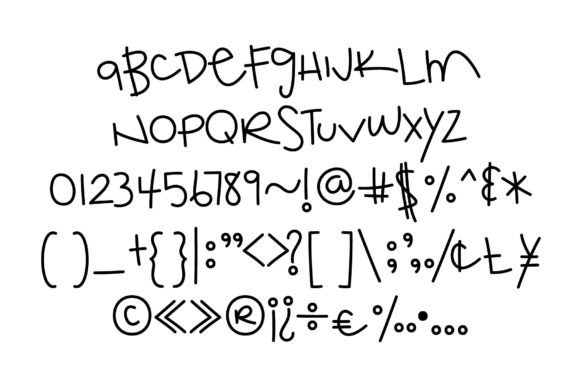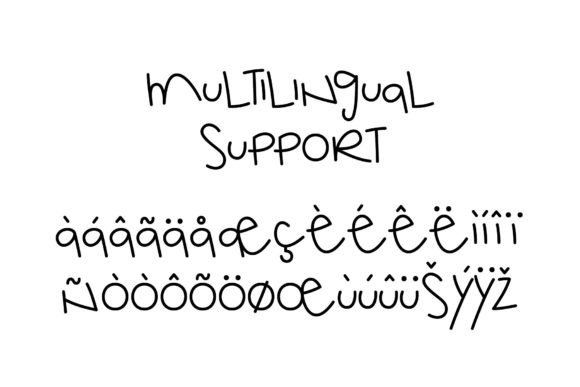
Introduction to No Regrets Font
Have you ever stared at a blank canvas, eager to bring a creative project to life, but struggling to find the perfect words to convey your vision? That’s exactly where I found myself the other day, and that’s when I stumbled upon the vibrant and playful No Regrets Font – a game-changer for designers like you and me.
With its bouncy letters and fun, carefree feel, the No Regrets Font is more than just a design resource – it’s a high-quality addition to any creative arsenal. Whether you’re working on a project with a transparent background or need a statement font to elevate your design, this font is sure to bring a smile to your face and a touch of whimsy to your work.
What makes the No Regrets Font truly special is its versatility – it’s the perfect tool for designers who crave a little extra flair in their projects, without sacrificing professionalism or sophistication.
Key Features of No Regrets Font
- High-quality design for creative projects, ensuring a professional finish.
- Unique characteristics, including elegant and modern script, making it ideal for wedding invitations, quotes, and other creative applications.
Honest Review: No Regrets Font
I recently stumbled upon the No Regrets Font, and I’m excited to share my honest thoughts on this design resource. As a designer, I’m always on the lookout for high-quality fonts that can elevate a creative project. The No Regrets Font does just that.
What works well about this font is its versatility. It comes in a range of weights and styles, making it easy to use in various design contexts. The transparent background also allows for seamless layering and compositing. ✨ The font is also free to download, which is a major plus for designers on a budget.
- High-quality design: The No Regrets Font has a professional, polished look that’s perfect for a wide range of creative projects.
However, I do have a few limitations to note. ⚠️ The font may not be suitable for use in small text sizes, as it can become difficult to read. Additionally, some designers may find the font’s style too playful or trendy for certain projects.
Overall, I’m impressed with the No Regrets Font. It’s a great addition to any designer’s toolkit, and I’m happy to recommend it to my colleagues and friends. With its high-quality design and versatile style, the No Regrets Font is a must-have resource for any creative project.
Tips for Getting the Most Out of No Regrets Font
To maximize the use of the No Regrets Font, experiment with different font sizes, colors, and combinations. This will help you achieve a unique and visually appealing design.
The No Regrets Font is ideal for creating eye-catching graphics, logos, and titles. Its high-quality design makes it perfect for a variety of creative projects, from social media graphics to business presentations.
Alternatives to No Regrets Font
Pacifico is a high-quality, elegant script font ideal for creative projects that require a touch of sophistication. It features a transparent background and is perfect for designing invitations, quotes, and other written content. When to use: For a classic, vintage look in your design project. How it compares to No Regrets Font: While Pacifico has a more refined and polished feel, No Regrets Font has a more modern and edgy vibe.
Great Vibes is a beautiful, handwritten font that’s perfect for designers looking for a unique and creative design resource. It features a transparent background and is ideal for designing quotes, posters, and other creative content. When to use: For a fun, playful look in your design project. How it compares to No Regrets Font: While Great Vibes has a more carefree and whimsical feel, No Regrets Font has a more bold and confident vibe.